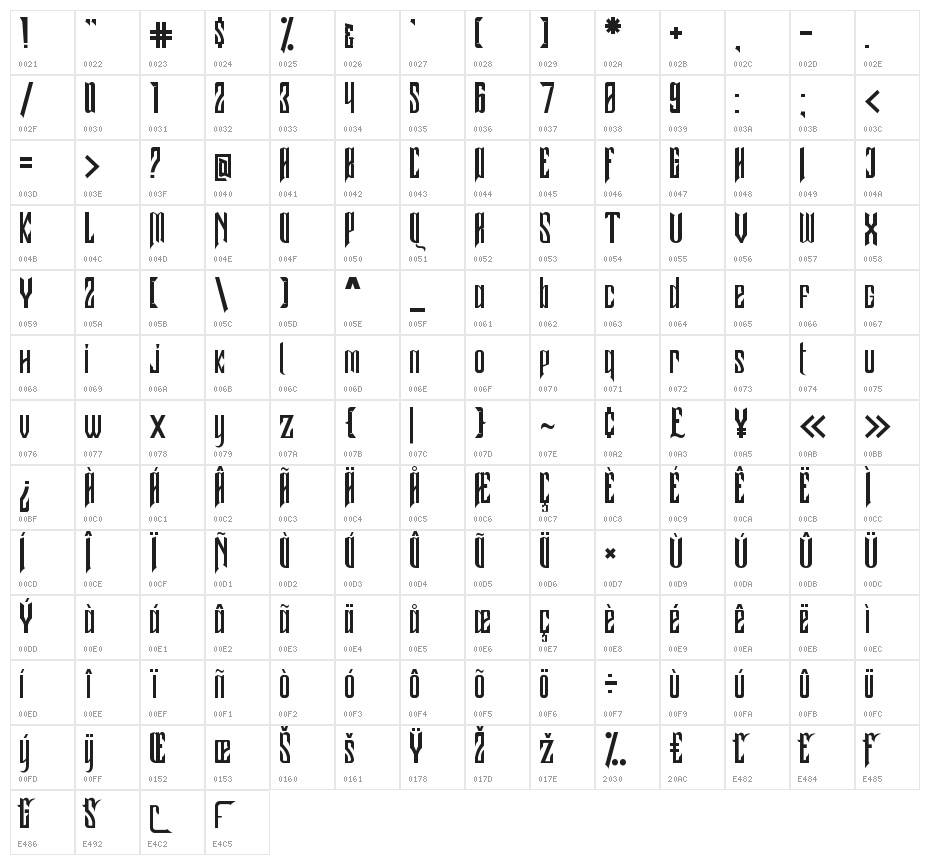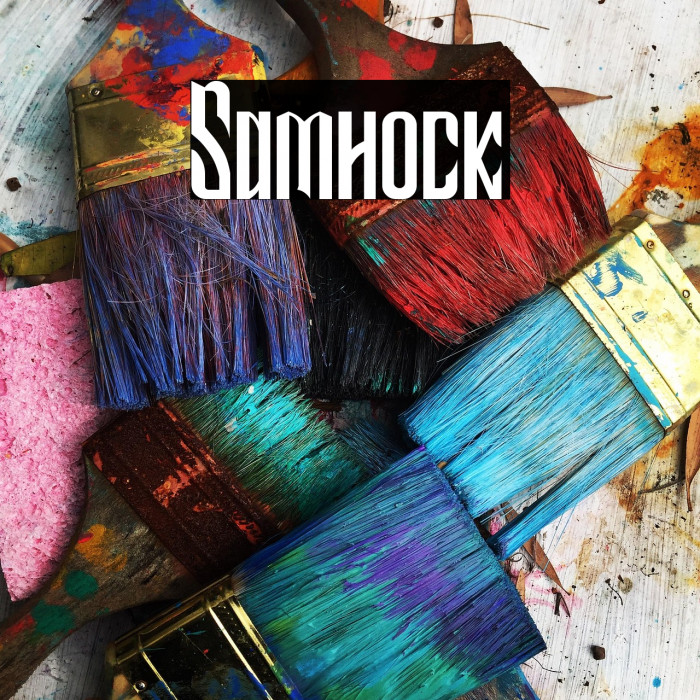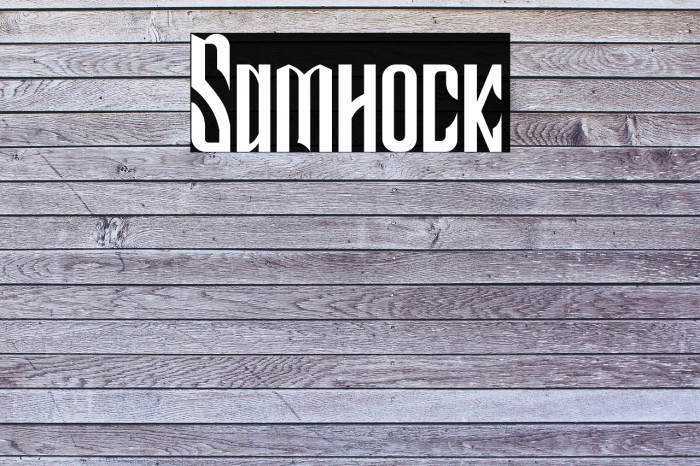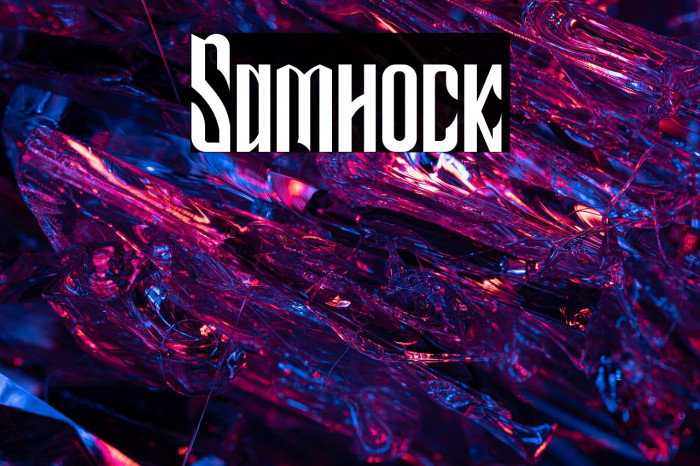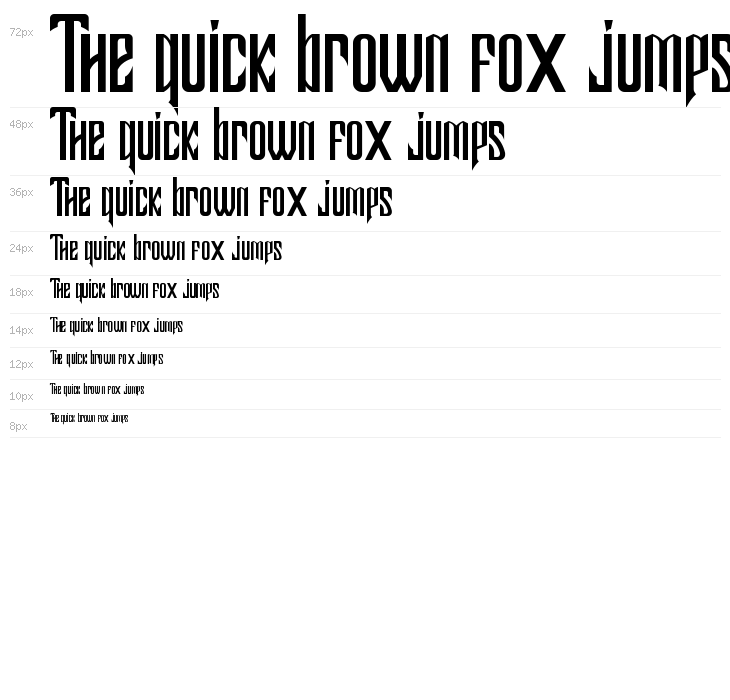
Samhock Font
Samhock Description
This font features a bold and striking design with a strong geometric influence. The characters are tall and narrow, with sharp angles and a distinct, modern aesthetic. The uppercase letters exhibit a uniform height, while the lowercase letters maintain a consistent style, adding to the cohesive look. The numbers and special characters follow the same bold and angular design, making the font suitable for impactful and attention-grabbing text. The overall appearance is both contemporary and slightly futuristic, ideal for projects that require a strong visual presence.
| Proposed Projects | Ideal for branding, posters, headlines, and any design requiring a bold statement. |